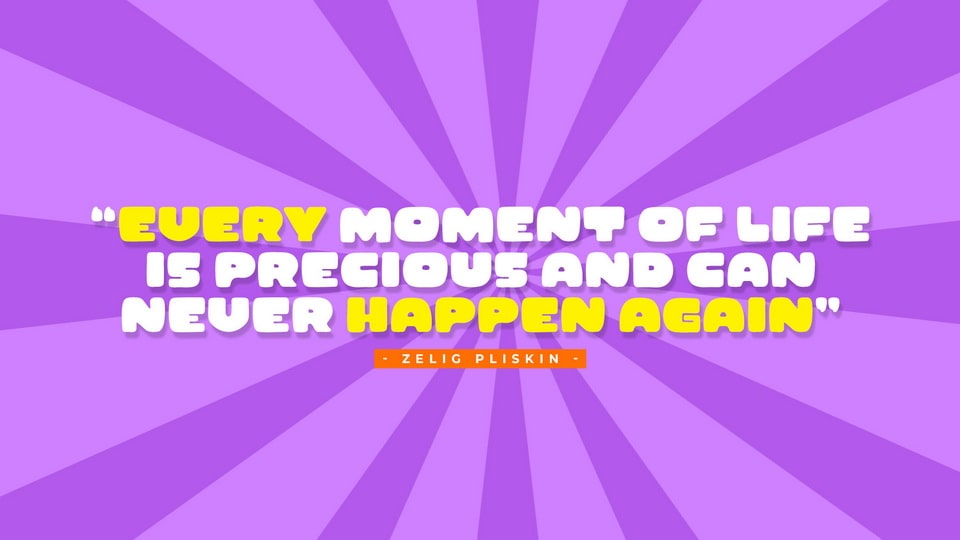
Pop Core is a heavy cartoon font bursting with personality. Its rounded corners and playful proportions create a funky, energetic look that’s impossible to ignore. Perfect for designs that need to stand out with a bold and cheerful vibe, Pop Core font feels right at home in children’s books, playful branding, party invites, and comic-style visuals.
With its exaggerated width and soft edges, this font radiates warmth and approachability while maintaining a fun, carefree attitude. Pop Core font turns every word into a statement of joy and creativity!